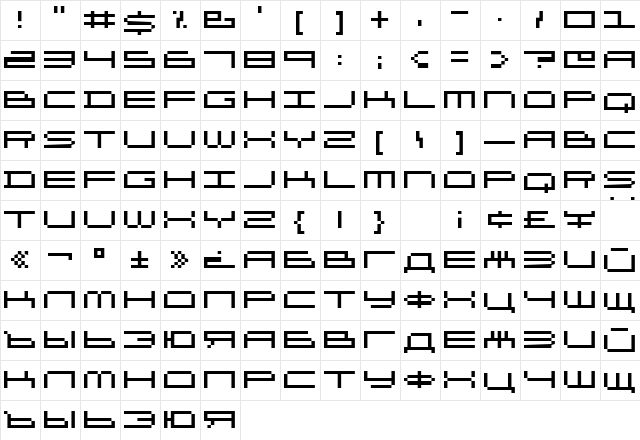
DS OlymPix Regular
Design Context for DS OlymPix Typeface
DS OlymPix is a composed and adaptable typeface that performs quietly and consistently across a wide range of design contexts.